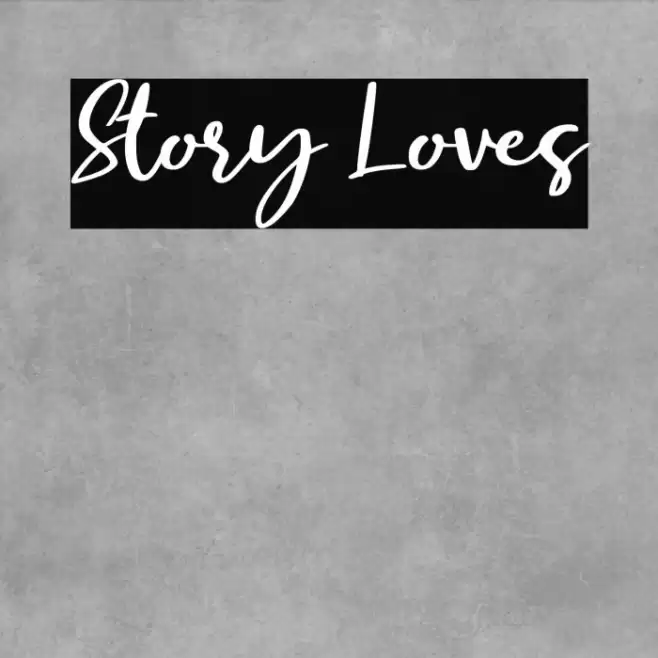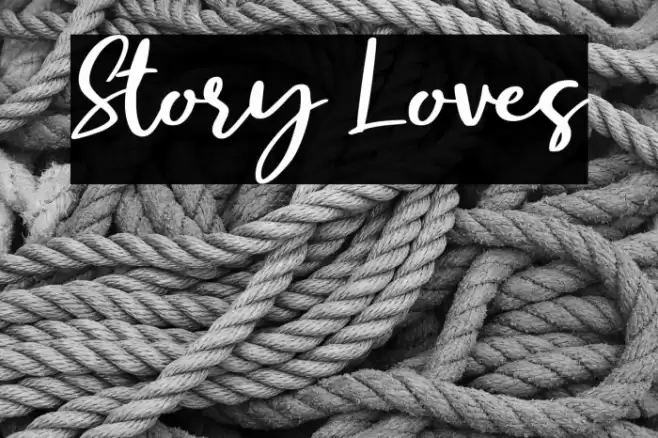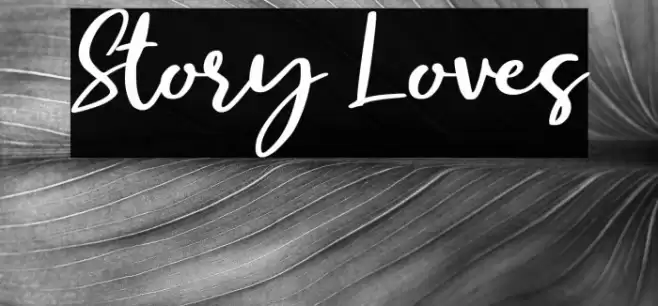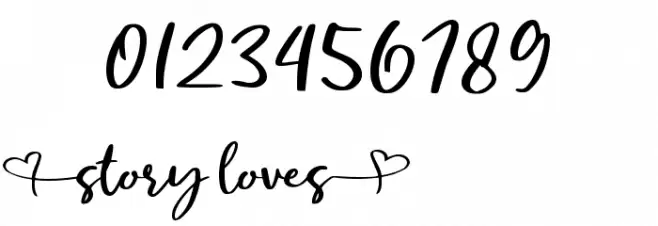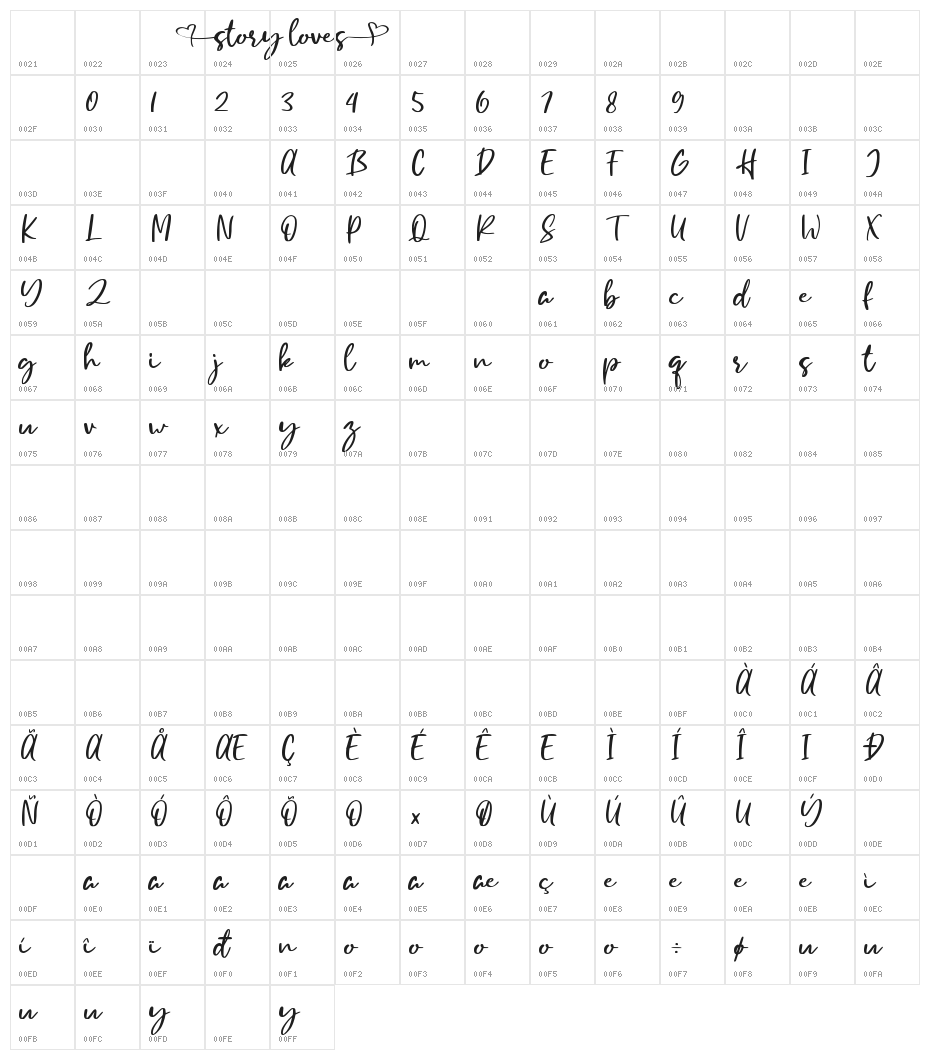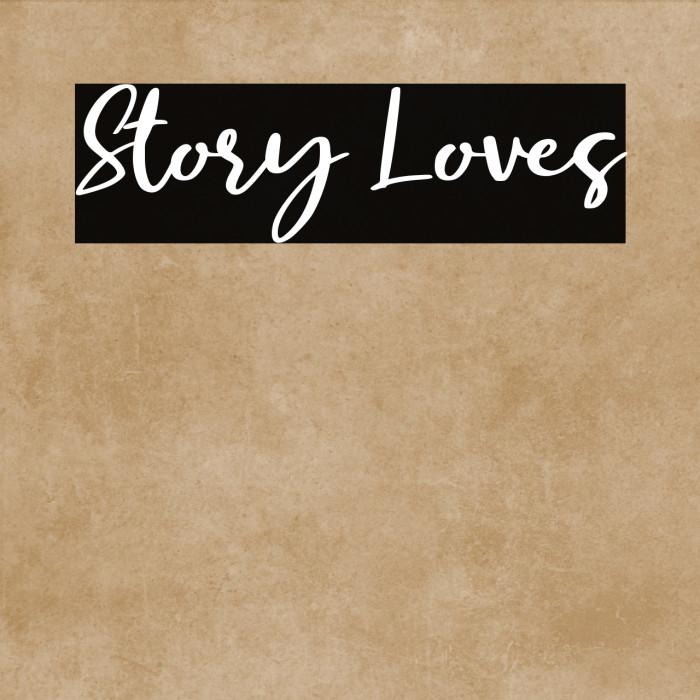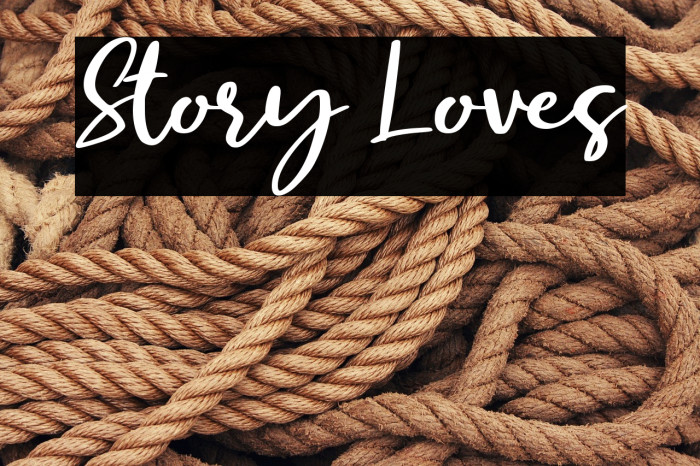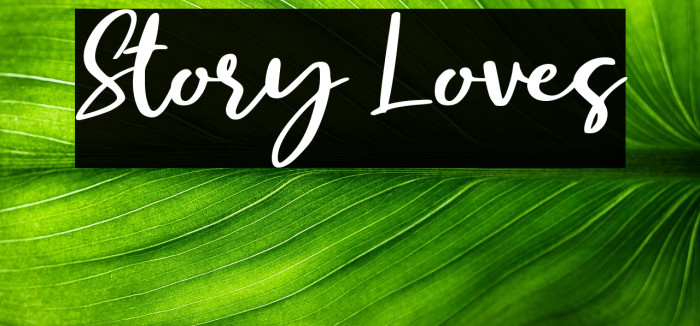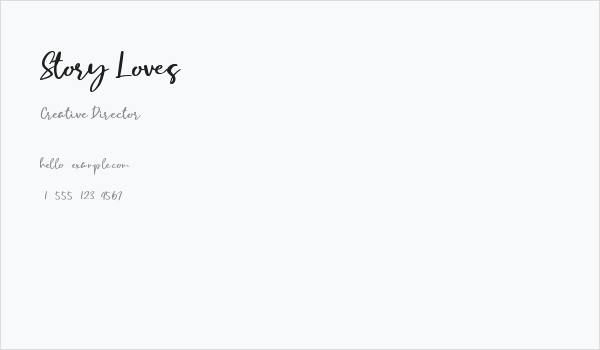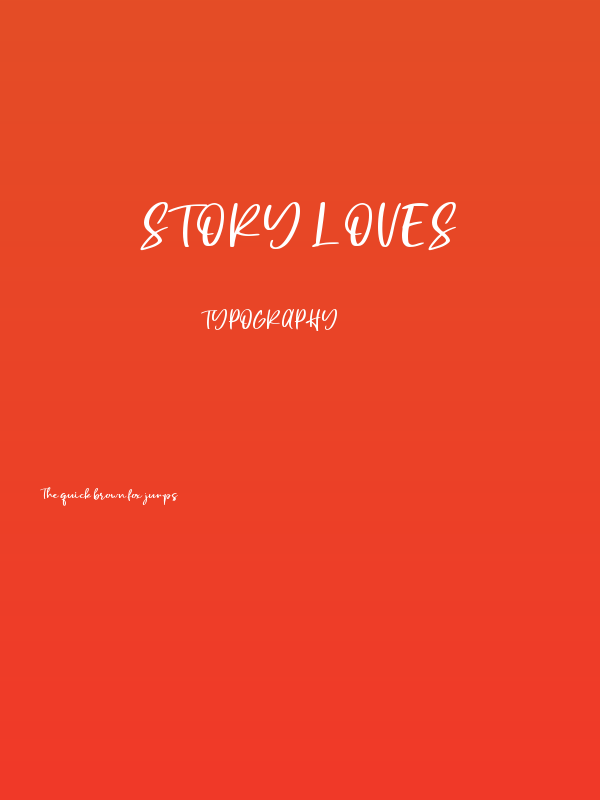
Story Loves Font
Story Loves Description
This font exudes a charming and whimsical handwritten style, characterized by its fluid and flowing letterforms. The uppercase letters maintain a consistent height, while the lowercase letters exhibit a playful bounce, adding to the font's lively personality. The strokes are smooth and slightly varied in thickness, providing a natural and organic feel. The numerals are clear and legible, matching the overall aesthetic. Special characters are elegantly integrated, maintaining the font's cohesive look. This font is perfect for projects that require a personal touch, such as invitations, greeting cards, or branding materials.
A whimsical handwritten font with fluid, flowing letterforms and a playful bounce from Regular fonts.
- Font: Story Loves
- Proposed Projects: Ideal for invitations, greeting cards, branding materials, and personal projects.
- Use Case: Logos, Headlines, Invitations